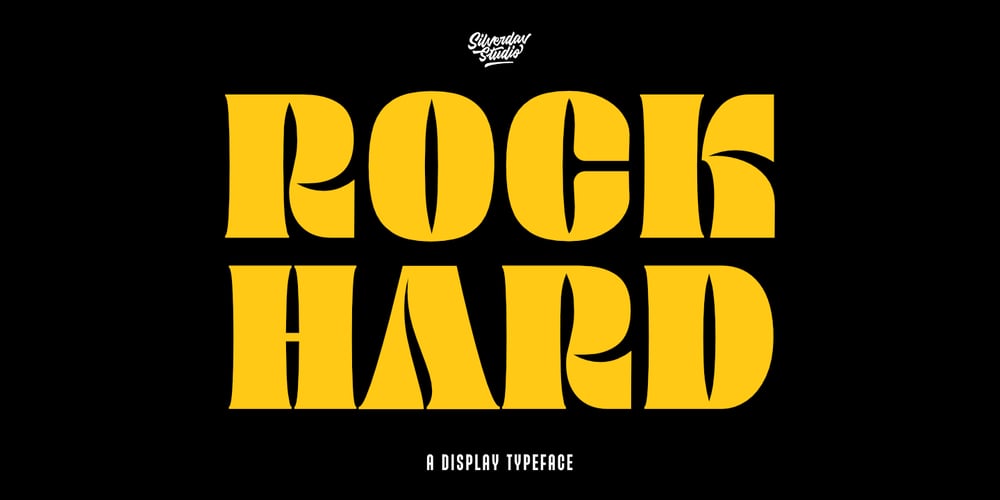
Rockhard Font Family was designed by David Kasidi, Andi Kaisar and published by Silverdav. Rockhard contains 1 styles and family package options. Introducing the “ROCKHARD” font, a type of display font with a strong and modern shape, you can find a lot of uniqueness in it, this font is intended for designers who like strong but still elegant fonts with a unique shape that will add an elegant impression to the design you and different from others.This font is very suitable for design needs such as logos, branding, magazine covers, and others, please try it yourself.If you have any questions, don’t hesitate to contact us.